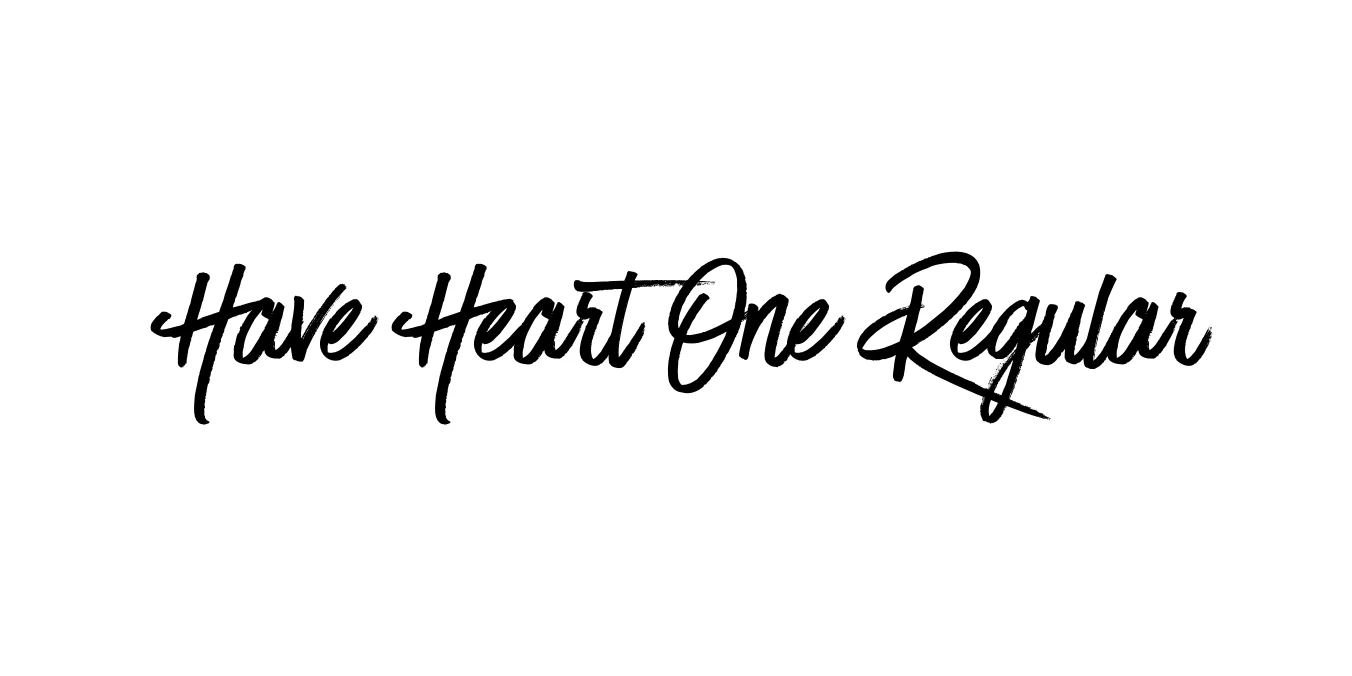
Have Heart One Regular
Designed by Sam Parrett
| Font Name | Have Heart One |
| Designer | Sam Parrett |
Have Heart One Regular is an exquisite, handmade brush script font designed by Sam Parrett of Set Sail Studios. It features high-energy strokes and a natural flow, making it perfect for creative projects that require an authentic, hand-painted look. The font is characterized by its organic textures and rhythmic movement, which helps designers achieve a bespoke aesthetic without needing custom lettering for every project.
Released to widespread acclaim, Have Heart has become a staple for graphic designers looking for versatility and raw energy. Whether it is used for high-end branding, social media graphics, or wedding invitations, the typeface provides a personal touch that standard digital fonts often lack. Its detailed edges and unique ligatures ensure that every word looks like it was expertly crafted by hand on paper.
Have Heart One Regular Best Uses
Ideal for creating logos with a personal, handcrafted feel.
Perfect for energetic Instagram quotes and story layouts.
Works beautifully for wedding invitations and greeting cards.
Great for t-shirt designs and custom apparel prints.